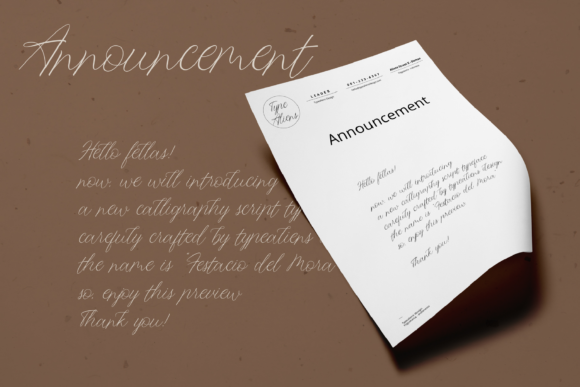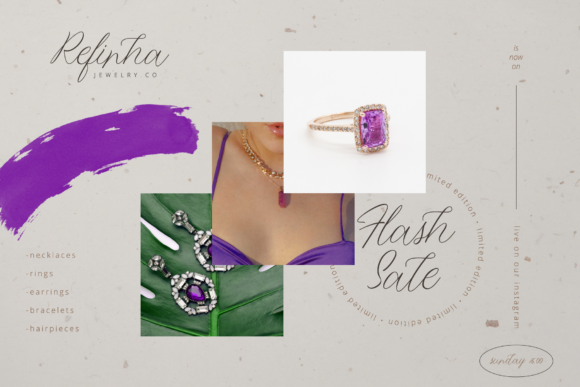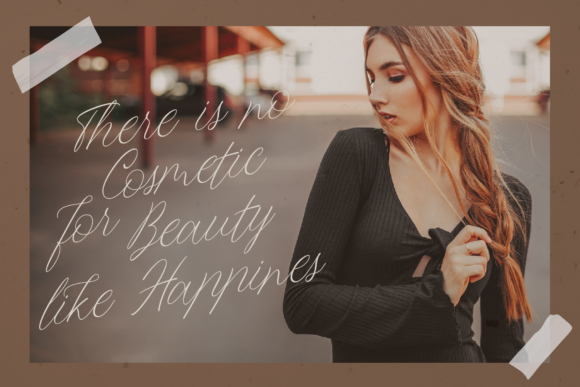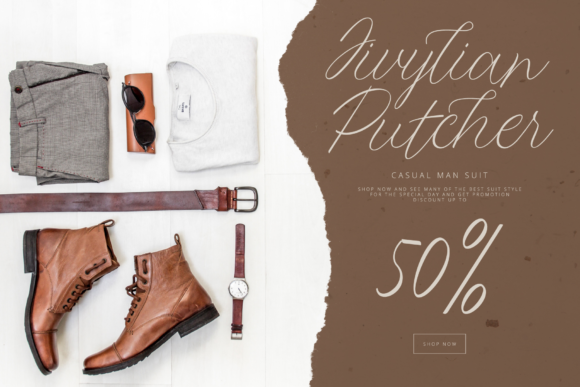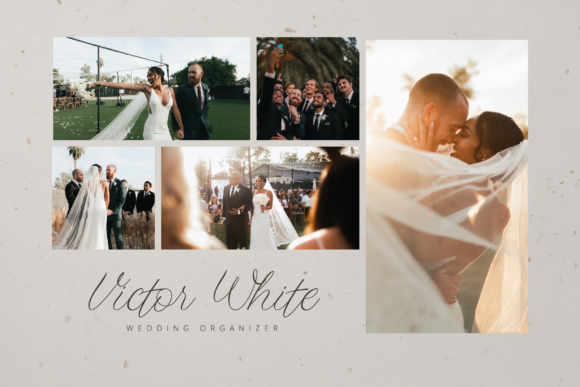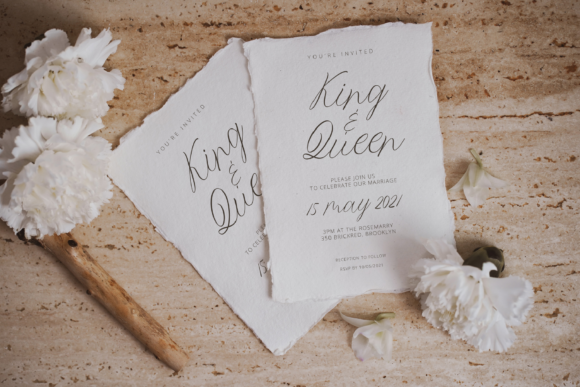
Introduction to Festacio Del Mora Font
Have you ever been in the midst of a creative project, pouring your heart and soul into a design, and then, suddenly, you need that one special element to bring it all together? For designers, finding the perfect font can be the difference between a good design and a great one. That’s where Festacio Del Mora Font comes in – a charming script font that’s sure to add a touch of magic to your most creative ideas.
This lovely font features playful characters that seem to dance along the baseline, making it a valuable addition to any design resource. Whether you’re working on a high-quality brochure, a website, or a social media graphic, Festacio Del Mora Font is the perfect choice. And the best part? It’s available for free download, so you can use it without worrying about any licensing fees.
- Features a unique, elegant design that is perfect for use in invitations, greeting cards, and other decorative elements.
Honest Review: Festacio Del Mora Font
I recently stumbled upon the Festacio Del Mora Font, and I must say it’s a great addition to my design resource library. The font’s unique design elements and high-quality aesthetic make it perfect for creative projects.
- What works well: ✨ The font’s versatility and readability make it suitable for various design applications, from logos to typography-heavy projects. ✨ The transparent background allows for seamless integration with different design elements.
- What works well: ✨ The font’s high-quality design ensures that it remains clear and legible even at smaller font sizes.
While the Festacio Del Mora Font is a solid choice, there are a few limitations to consider: ⚠️ The font may not be suitable for projects requiring extremely bold or condensed typography. ⚠️ Some users may find the font’s design elements too ornate for certain design applications.
Overall, I’m impressed with the Festacio Del Mora Font. Its high-quality design, versatility, and free download option make it a valuable addition to any designer’s library. If you’re looking for a new font to add some flair to your creative projects, I’d definitely recommend giving it a try.
Festacio Del Mora Font is perfect for creative projects such as logos, brochures, and social media graphics. Its high-quality design and transparent background make it a versatile design resource for any project.